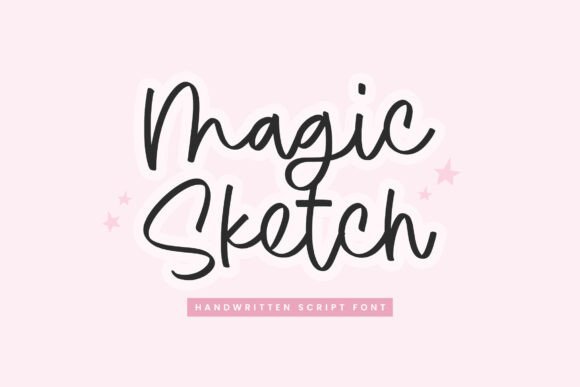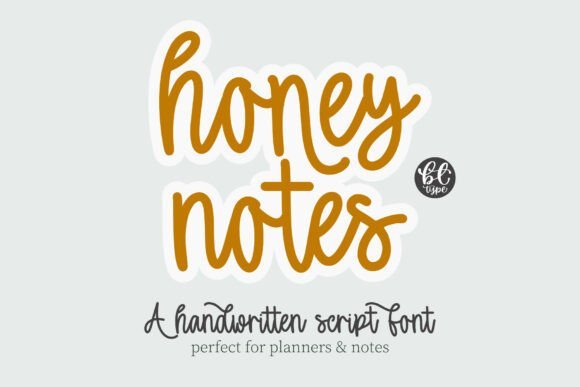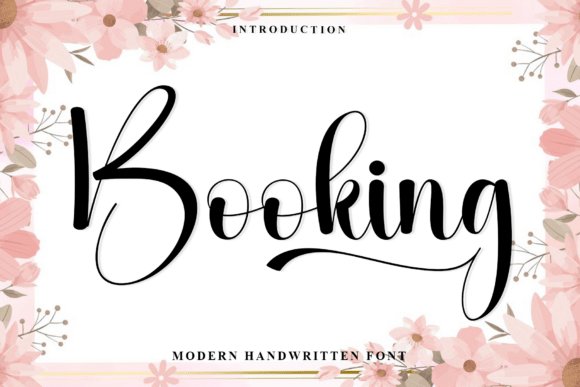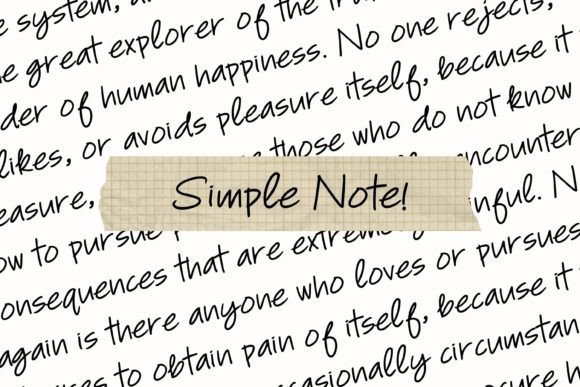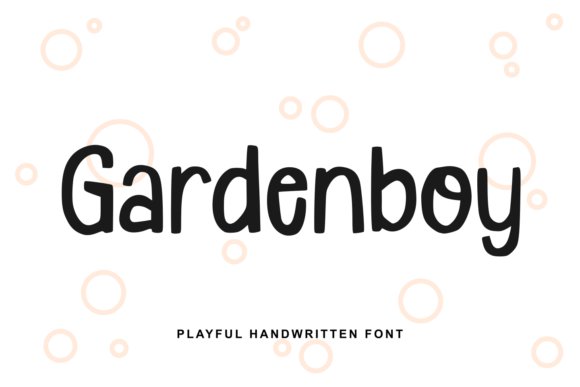
25 Organic Casual Handwriting Fonts to Make Your Projects Feel Personal and Real in 2026
Adding a personal touch to your digital designs often starts with the right typography choice. These 25 Casual Handwriting Fonts offer a relaxed vibe that mimics real penmanship without looking messy. This style helps make your digital projects feel less clinical and more approachable.
In 2026, many creators are moving away from rigid structures and embracing styles that feel more human and accessible. A natural-looking script can make your message feel more sincere and friendly to your audience. It creates an immediate sense of familiarity that standard sans-serifs simply cannot match.
Picking a typeface that looks like it was written quickly with a pen helps bridge the gap between a screen and the viewer. These specific selections work well for social media posts, modern greeting cards, and creative website headers.
1. Casual Handwriting Font
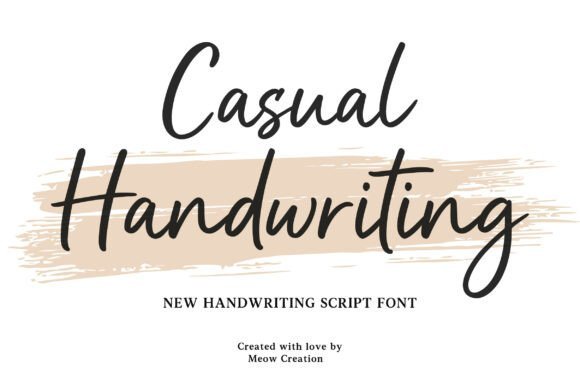
This typeface brings a relaxed vibe to your layouts with its fluid, organic strokes. It mirrors the look of a steady hand using a fine-liner pen, making it a top choice for those seeking Casual Handwriting Fonts that feel approachable. The balance between each character keeps the text feeling light and airy.
These letterforms work well for lifestyle branding or social media overlays. Since the lines are clean, the text remains legible even at smaller sizes on mobile screens. It adds a personal touch without cluttering the visual space of your graphic.
My Recommendation: I find this typeface works best for minimalist logo designs or Instagram quotes. The simplicity of the strokes gives it a friendly personality that does not feel forced. It is my go-to when a project needs to look human yet professional.
2. Casual Handwriting Font
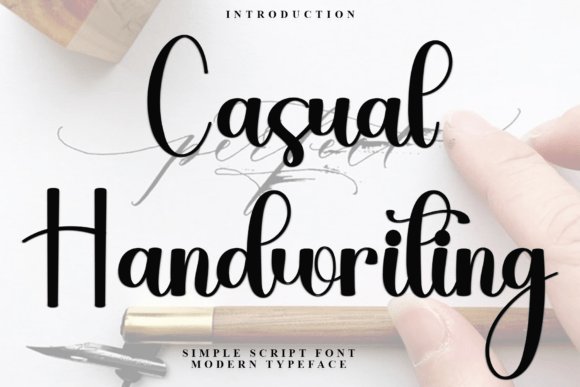
Capture the spirit of a handwritten holiday card with this decorative script. It features playful loops and a merry rhythm that brightens up seasonal stationery. The PUA encoding ensures you can access every special character without needing complex software.
Use these letters for gift tags or festive event flyers to create a sense of nostalgia. The whimsical flair provides a cheerful look that pairs well with bright colors and bold illustrations. It stands out in print thanks to its unique, handcrafted shapes.
My Recommendation: I love using this for Christmas card addresses or holiday party invitations. The extra curls on certain letters give it a fancy feel that people notice immediately. It is a great pick for any project where a festive mood is the main goal.
3. Casual Handwriting Font
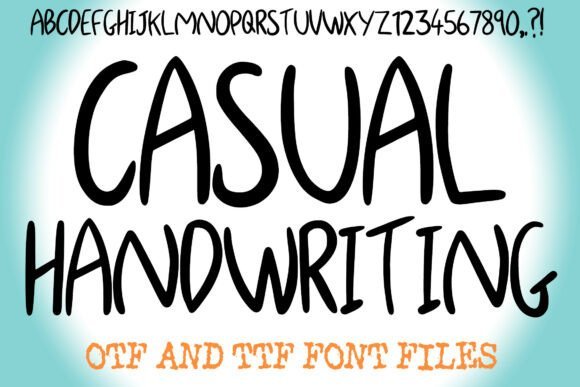
This style mimics the quick, neat notes found in a personal diary. It avoids the stiff look of standard typography by using varied line weights and natural-looking connections. It provides an authentic aesthetic that makes digital content feel more relatable.
Writers and bloggers will appreciate how well these characters flow together on a page. The spacing is wide enough to prevent crowding while maintaining a tight, cohesive appearance. It is a solid choice for digital planners where space is often limited.
My Recommendation: This is my favorite choice for digital journaling or annotating PDF documents. It looks exactly like my own handwriting on a good day, which makes digital layouts feel much more personal. I recommend it for anyone building a lifestyle brand centered on authenticity.
4. Tall Casual Handwriting Font
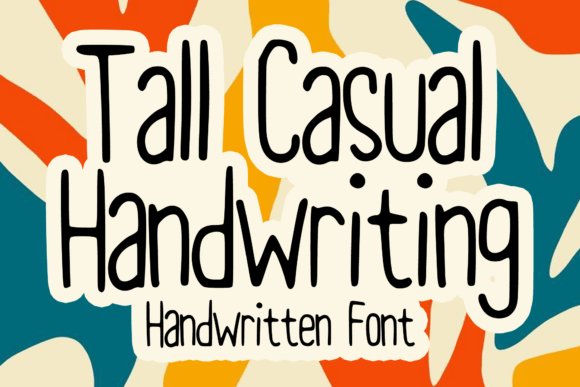
This typeface brings a playful and slender aesthetic to your digital canvas. Its elongated strokes mimic the feel of a fine-tip pen held with a light grip, making it perfect for cheerful social media graphics or custom stickers. Because it maintains a consistent weight, the legibility remains high even when scaled down for smaller print projects or comic book dialogue bubbles.
When searching for reliable Casual Handwriting Fonts, this option stands out for its vertical presence and quirky charm. It avoids the rigid structure of traditional scripts, opting instead for a hand-drawn look that feels personal and approachable. Use it to give your logo or book cover a friendly vibe that connects directly with your audience through simple, honest letterforms.
My Recommendation: I reach for this font whenever I’m working on merch designs or casual stationery that needs to feel lighthearted. The tall proportions provide a unique rhythm on the page that breaks up dense blocks of text beautifully. It’s my go-to for branding projects where a stiff, formal look would feel out of place.
5. Boisterous Sketch (single Line) Font
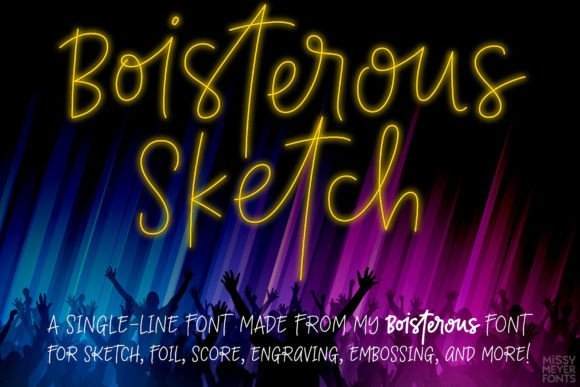
This single-line typeface serves a specific purpose for creators using CNC machines, Glowforge, or foil quills. Unlike standard outlines, the paths here are optimized for a single pass of a stylus, resulting in a clean and efficient engraving or sketching process. With over 600 glyphs, it provides plenty of variety for complex layouts that require a genuine, hand-lettered appearance.
Finding a typeface that looks authentic makes a big difference in how people perceive your creative work. Using any of these hand-drawn styles provides a way to connect with your readers on a level that feels genuine. These fonts help break up the monotony of standard digital layouts.
The selection here covers various weights and styles to fit different creative needs throughout 2026. Try experimenting with different letterforms to see which one speaks most clearly to your specific project goals. A simple change in typography often shifts the entire mood of your final design.